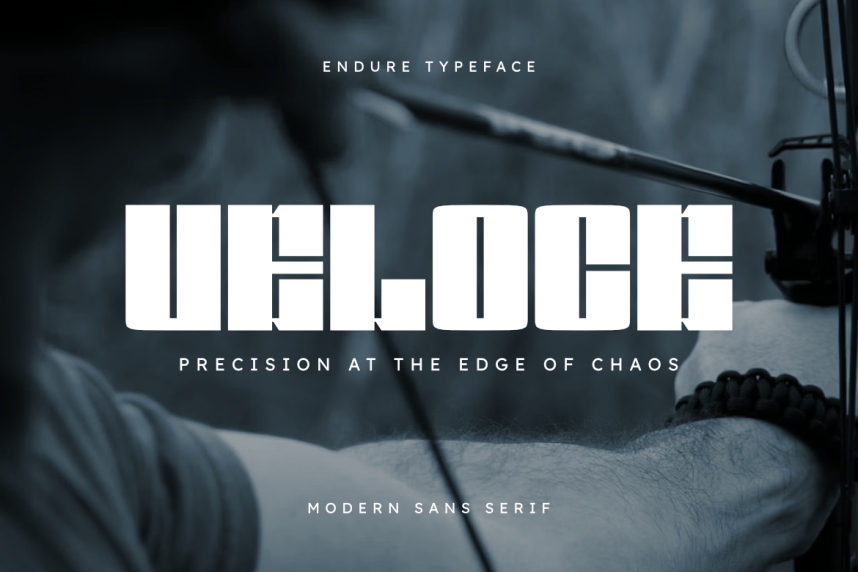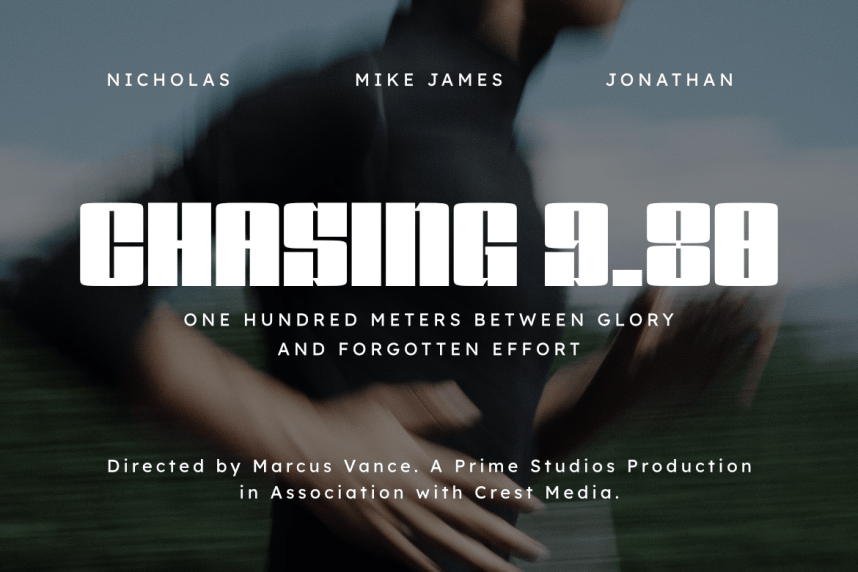
Endure Font
Endure Font modern bold sans serif font, bold font, modern bold font, display font, athletic font, sport font, fitness font, gym font, boxing font, strong font, powerful font, heavy font, thick font, high impact font, uppercase font, futuristic font, sci-fi font, techno font, cyber font, urban font, street style font, edgy font, aggressive font, confident font, statement font, headline font, title font, poster font, banner font, logo font, branding font, graphic design font, digital font, web font, print font, corporate font, stylish font, aesthetic font, versatile font, eye-catching font, professional font, creative font, trendy font, sharp font, modern typography, heavy typography, action font, speed font, dynamic font